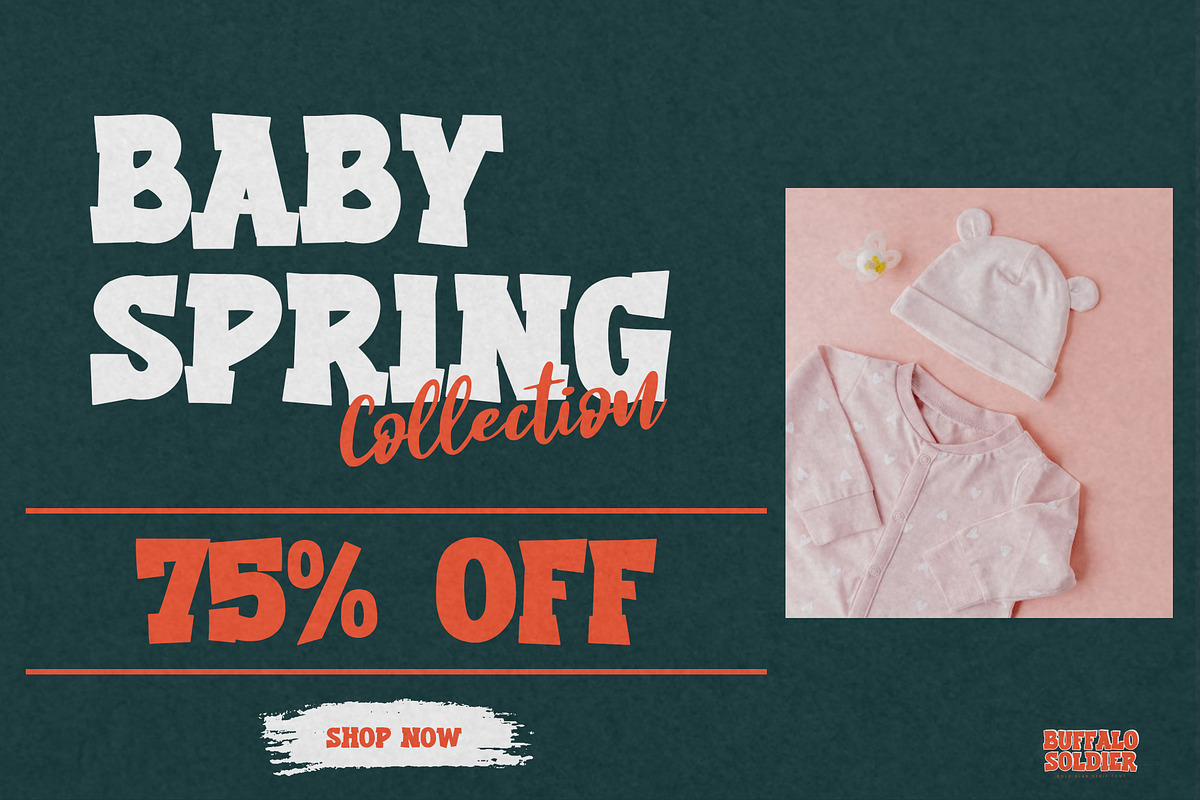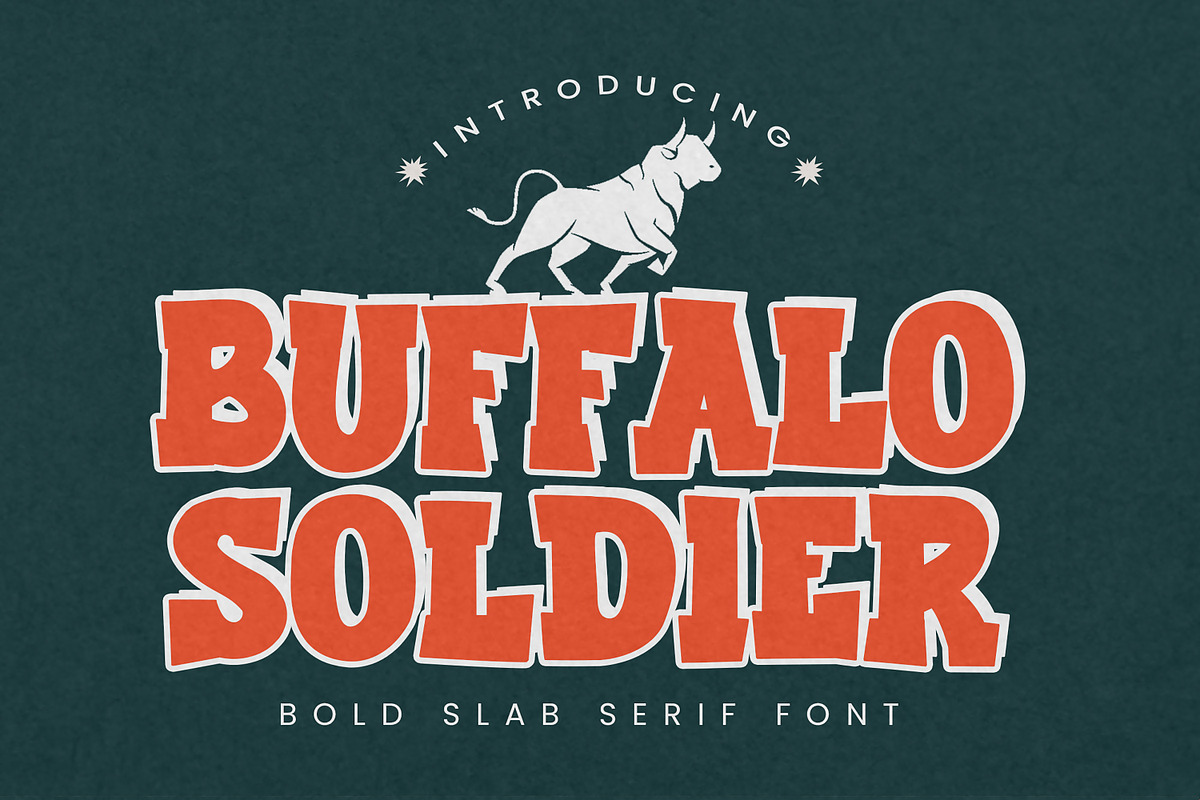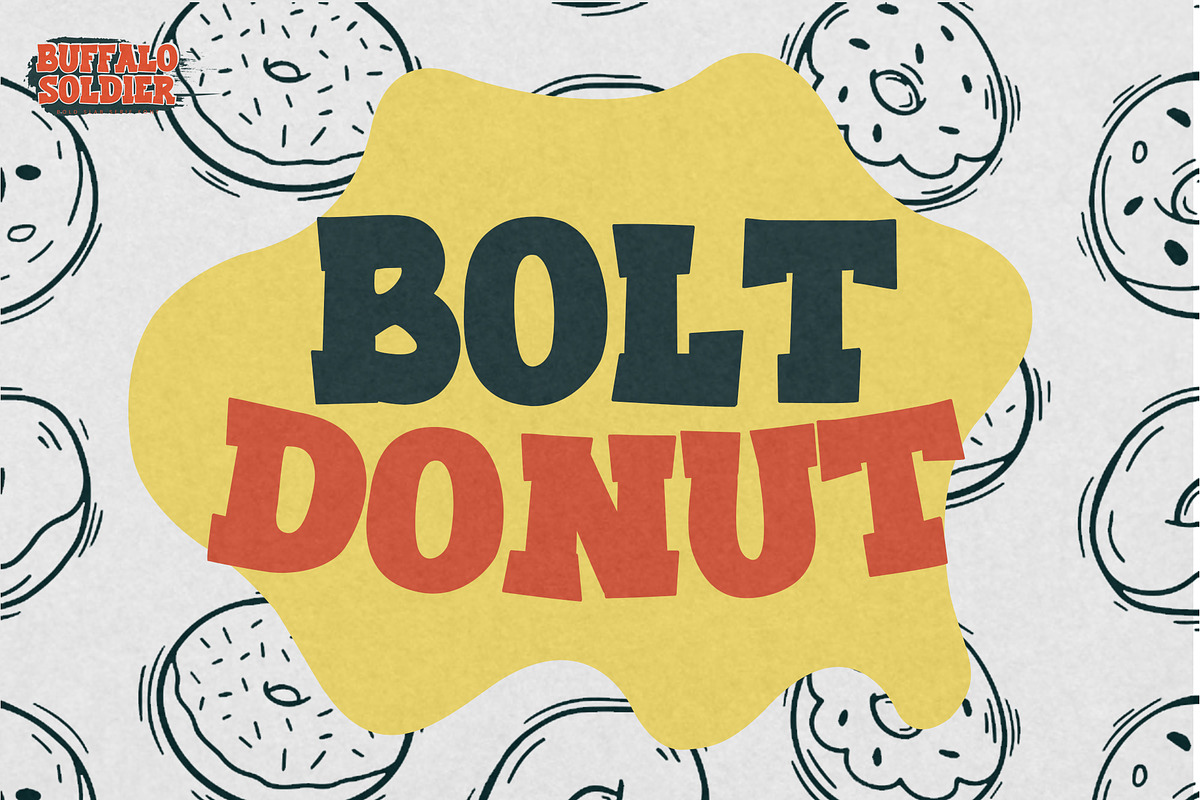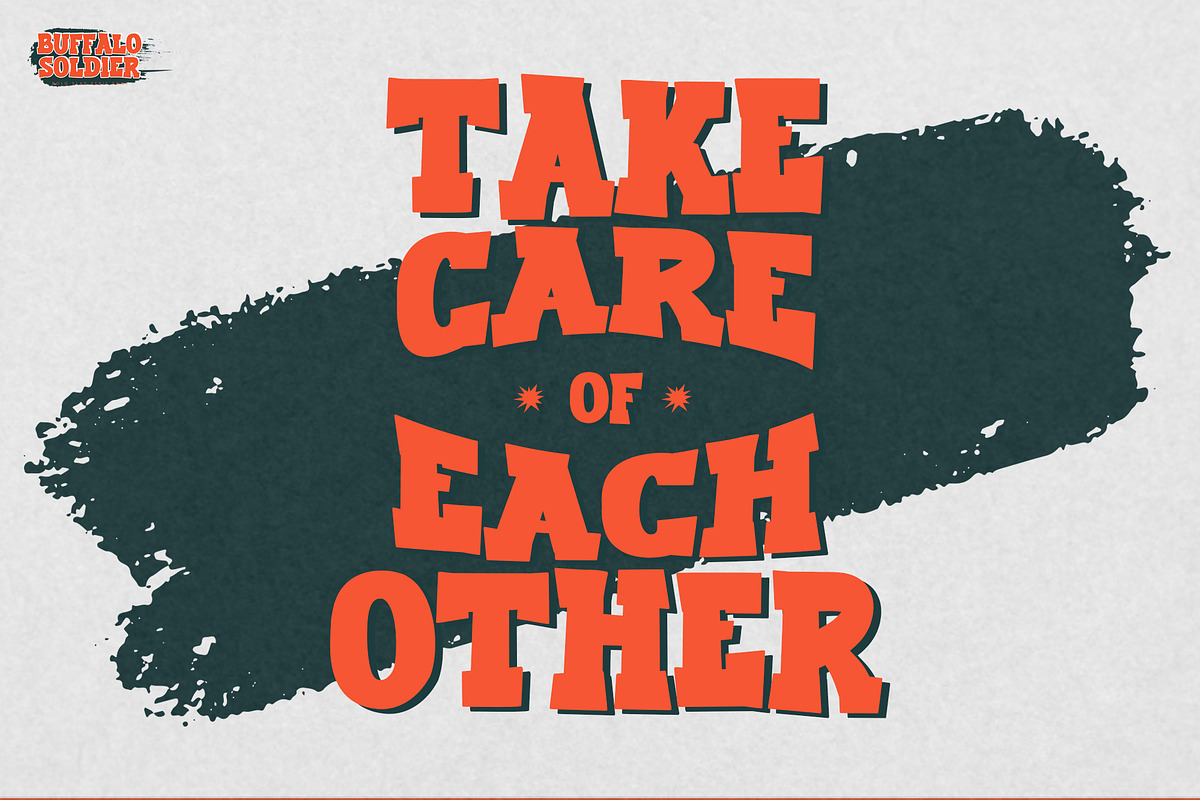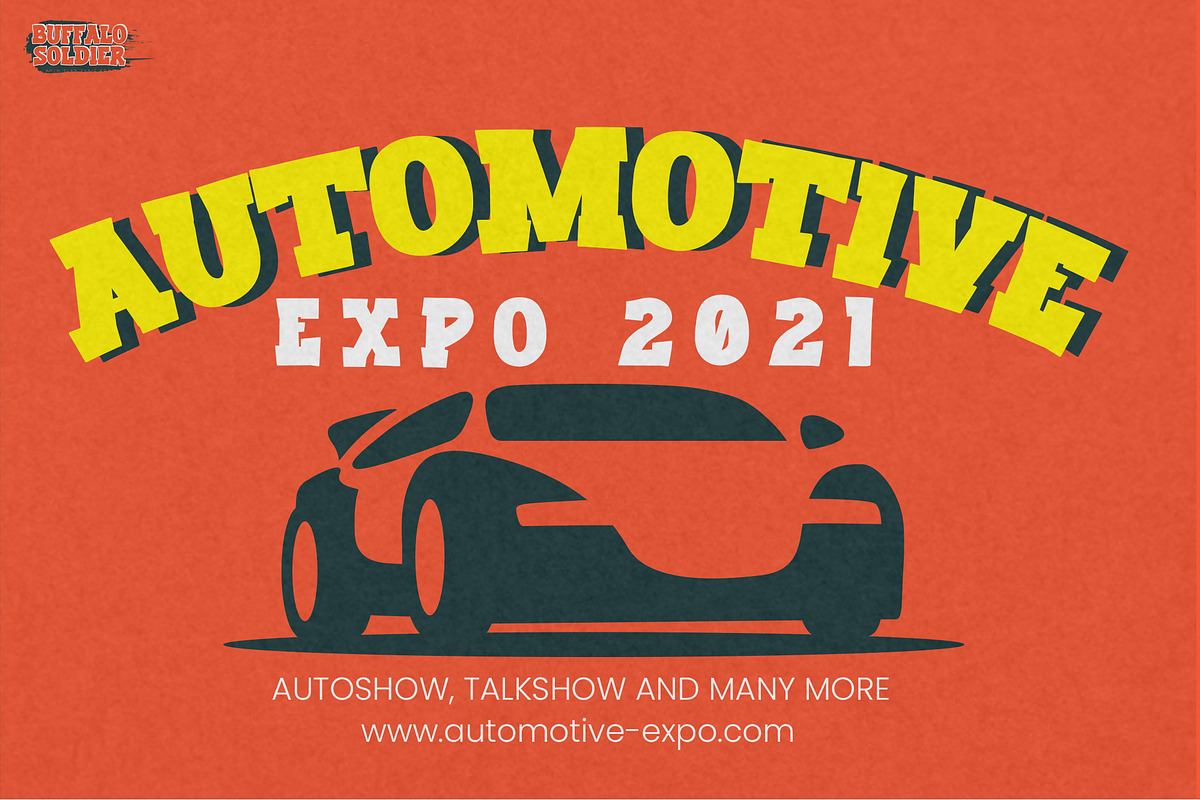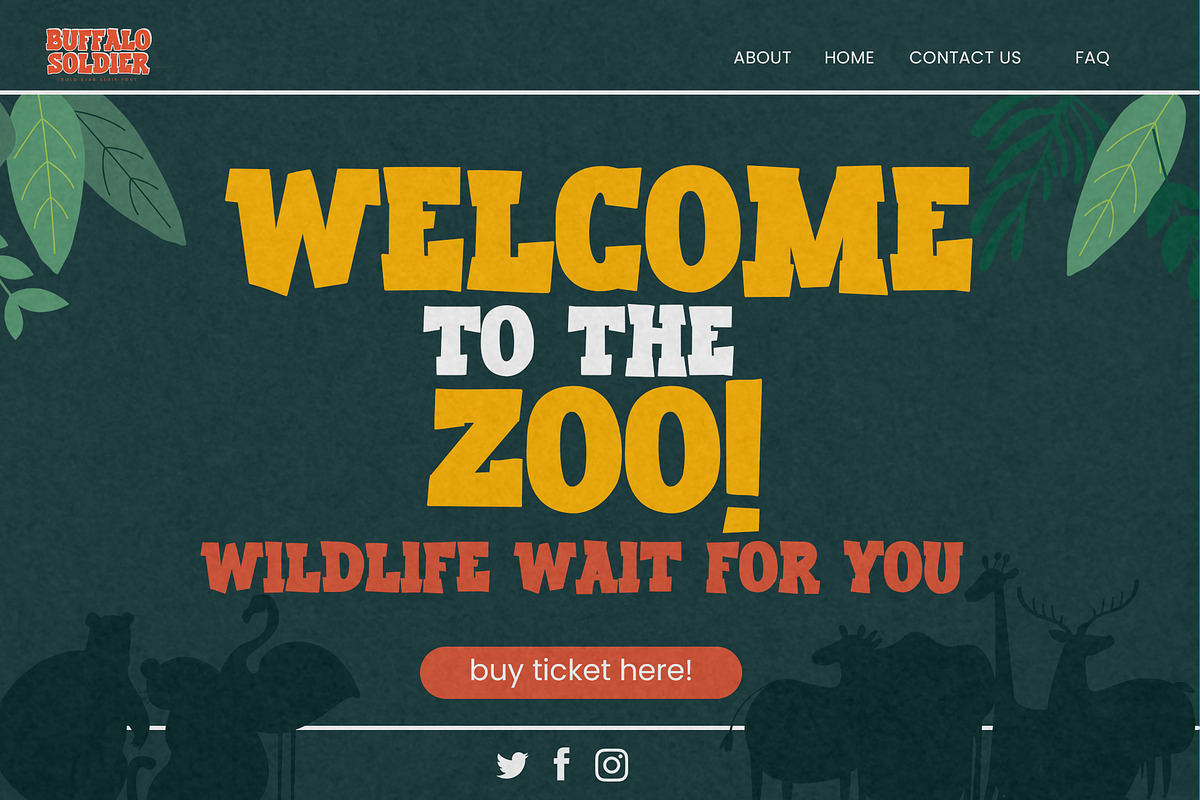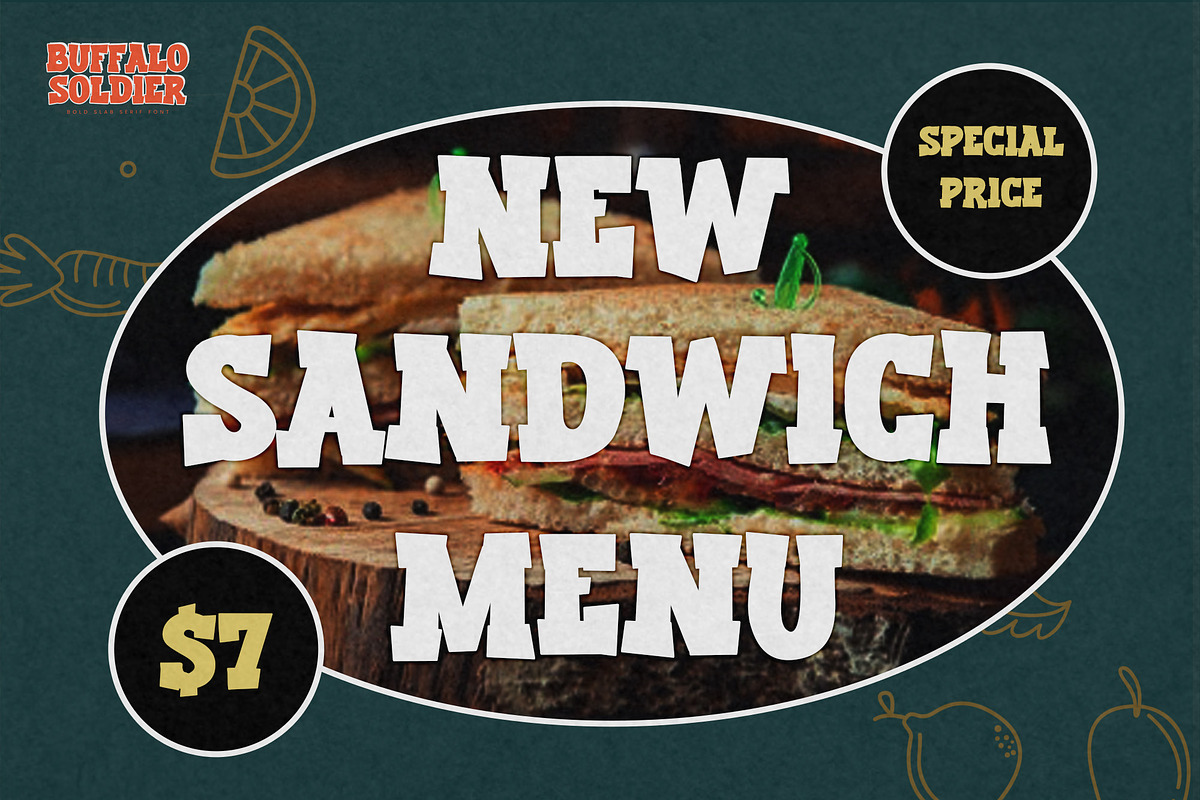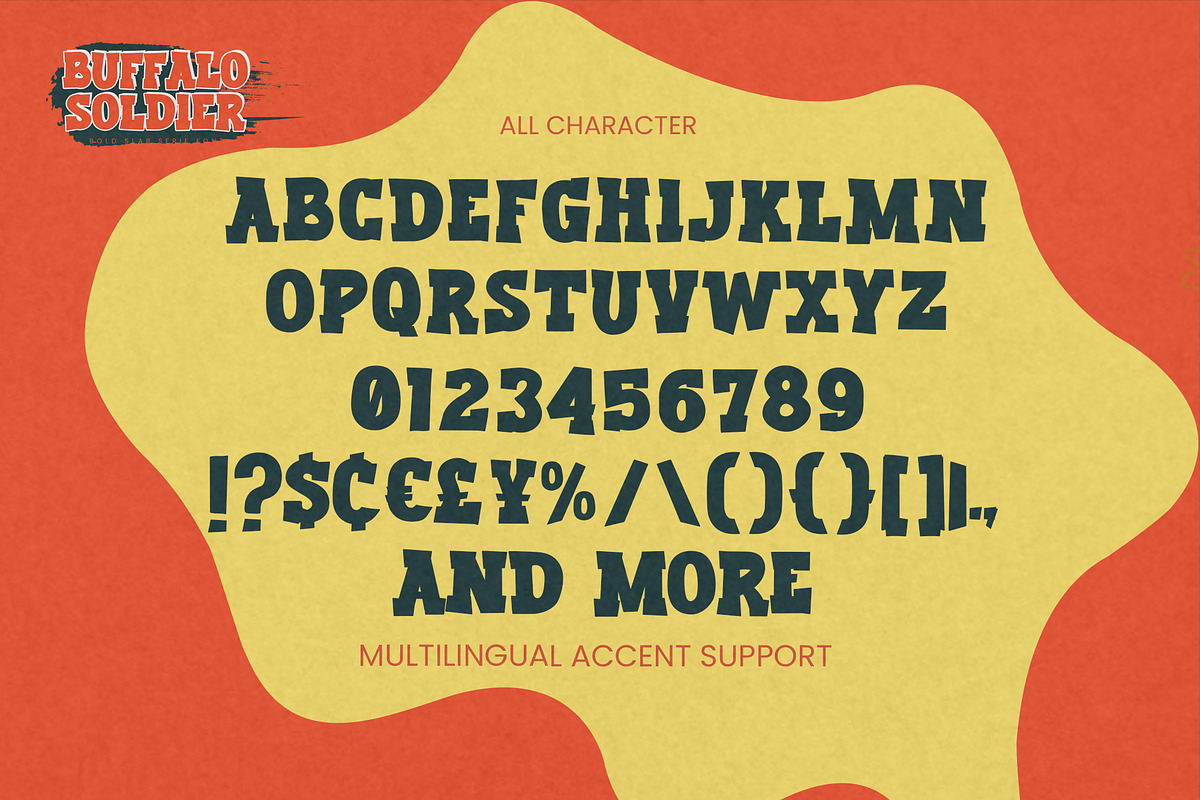
Buffalo Soldier – Bold Slab
Buffalo Soldier is a bold slab serif font that will make your designs look retro and vintage. It’s perfect for labels, quotes, posters, DIY projects, branding, packaging, greeting cards, websites, photography overlays, signs, window art, scrapbooking, tags and so much more!